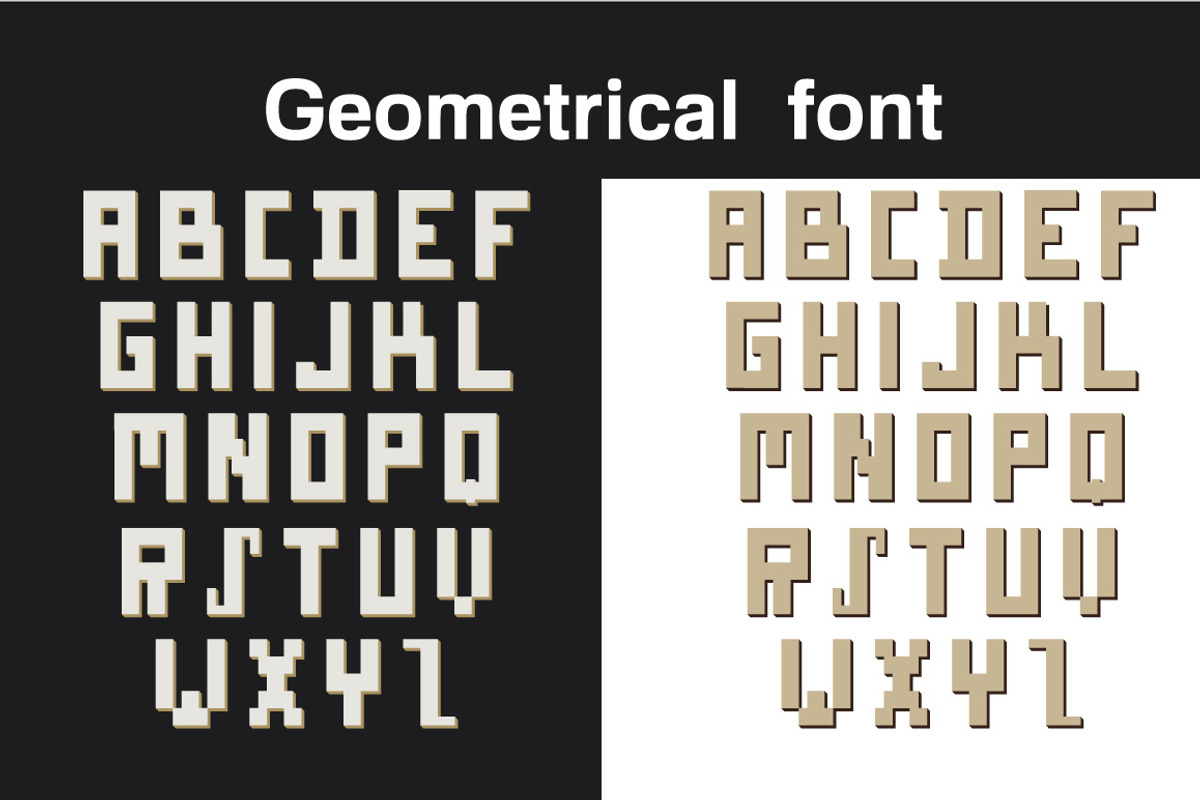
Geometrical font
Geometrical font by Dukesn is a font selected for branding, posters, packaging, typography.
Why Geometrical font is worth a look
Geometrical font by Dukesn fits naturally into Branding, posters, packaging, typography.